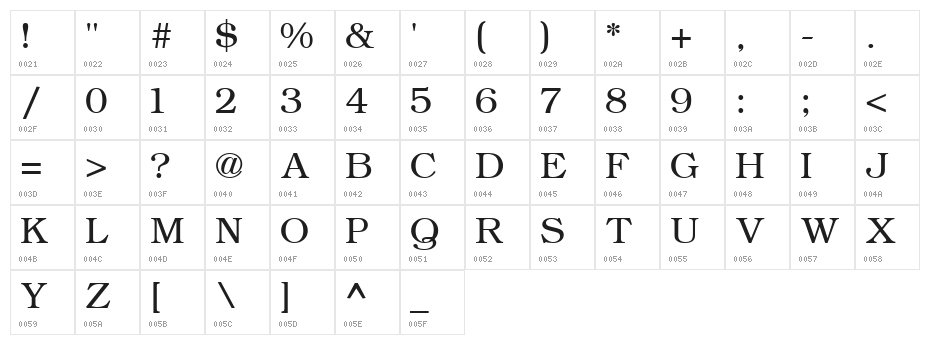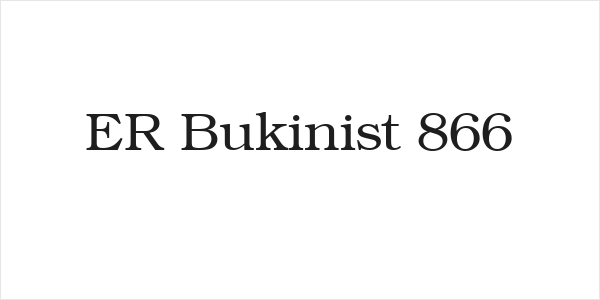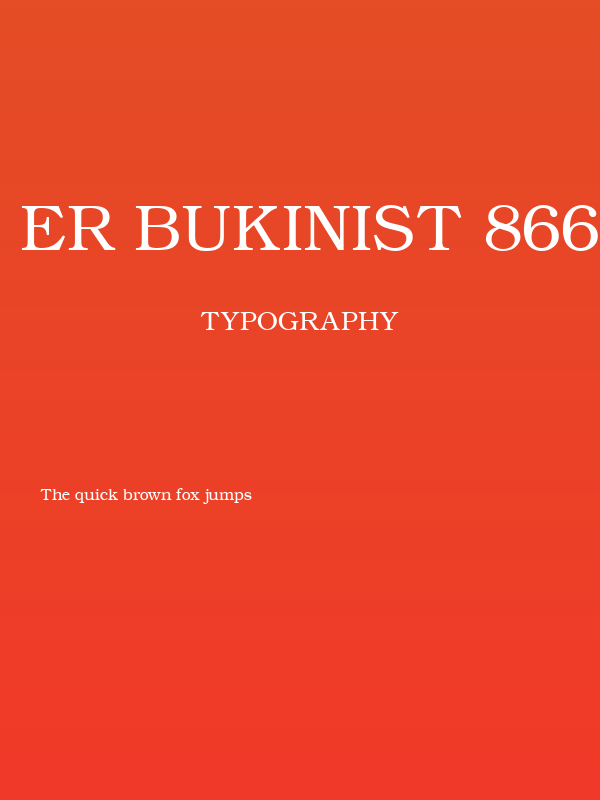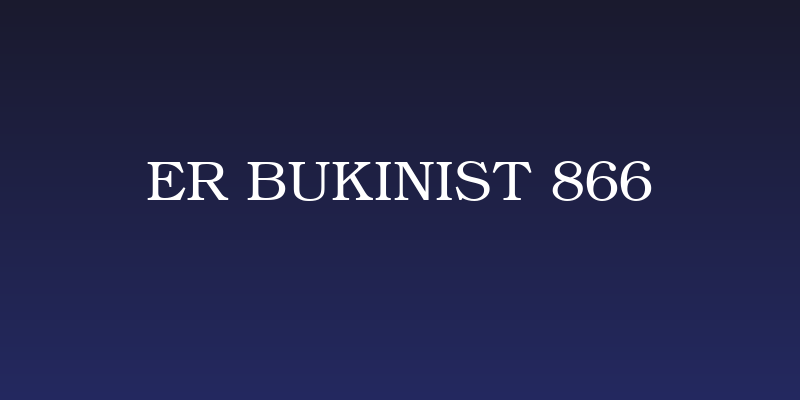
ER Bukinist 866 Font
ER Bukinist 866 Description
This font exhibits a classic serif style with a refined and elegant appearance. The characters feature distinct serifs that add a touch of sophistication and tradition. The uppercase letters are bold and commanding, while the lowercase letters maintain a balanced and harmonious flow. The numerals are clear and well-proportioned, making them suitable for a variety of applications. Special characters are included, offering versatility for different design needs. The overall design is timeless, making it ideal for projects that require a touch of elegance and professionalism.
| Proposed Projects | Ideal for book covers, editorial design, formal invitations, and branding projects that require a traditional and sophisticated look. |